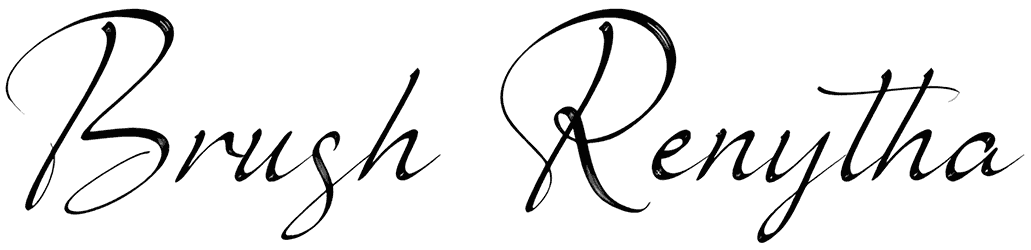
Brush Renytha Font
The calligraphy script font Brush Renytha will lend a handwritten quality to your digital documents. Although hard to read, it has become popular for signatures, greeting cards, and other forms of stationery. Use the Brush Renytha font, available for free in RB’s font category, to inject some natural flair into your typography and achieve the ideal informal vibe. This romantic font could be an excellent choice if you and your client are seeking something different to try.